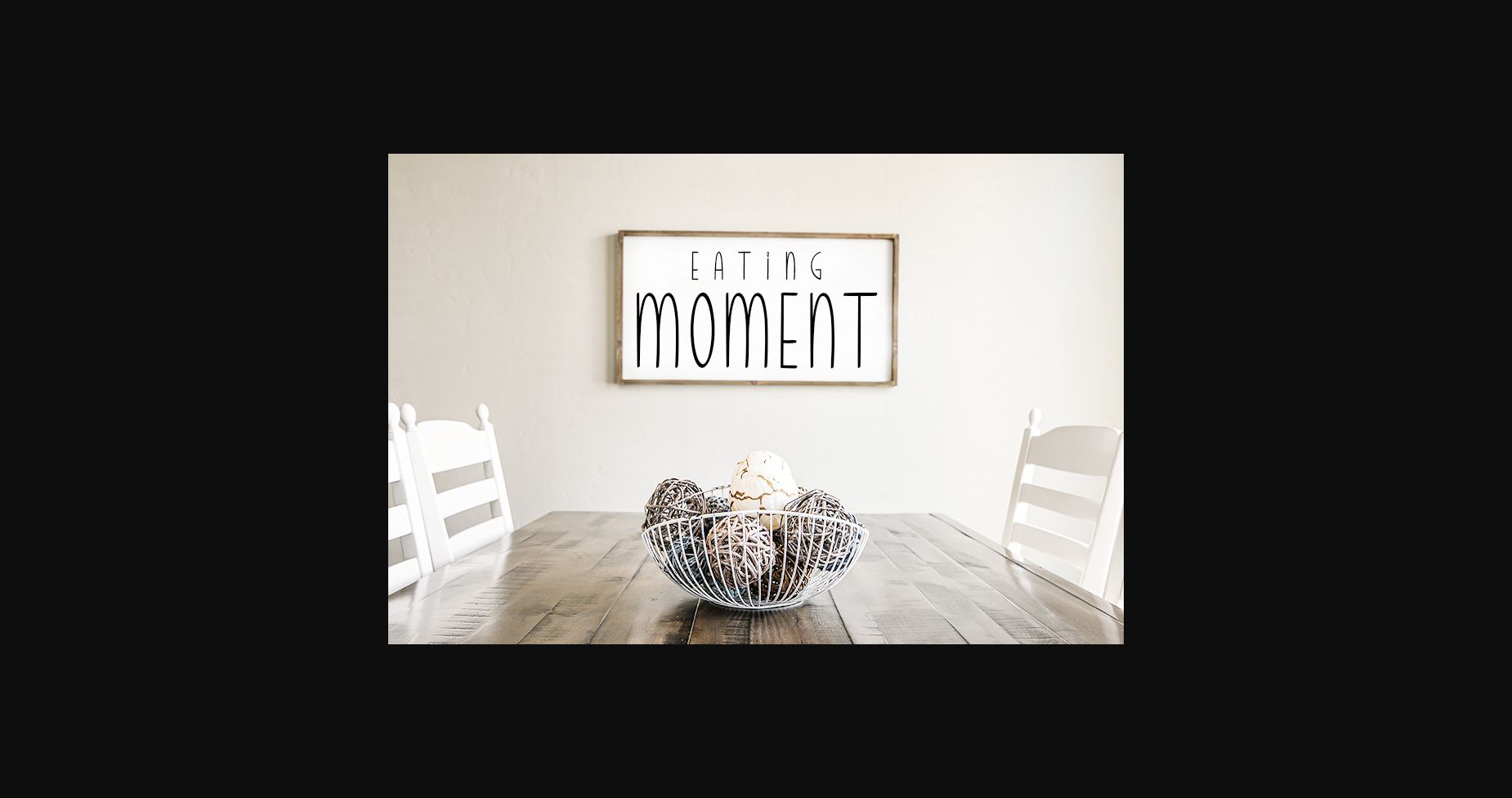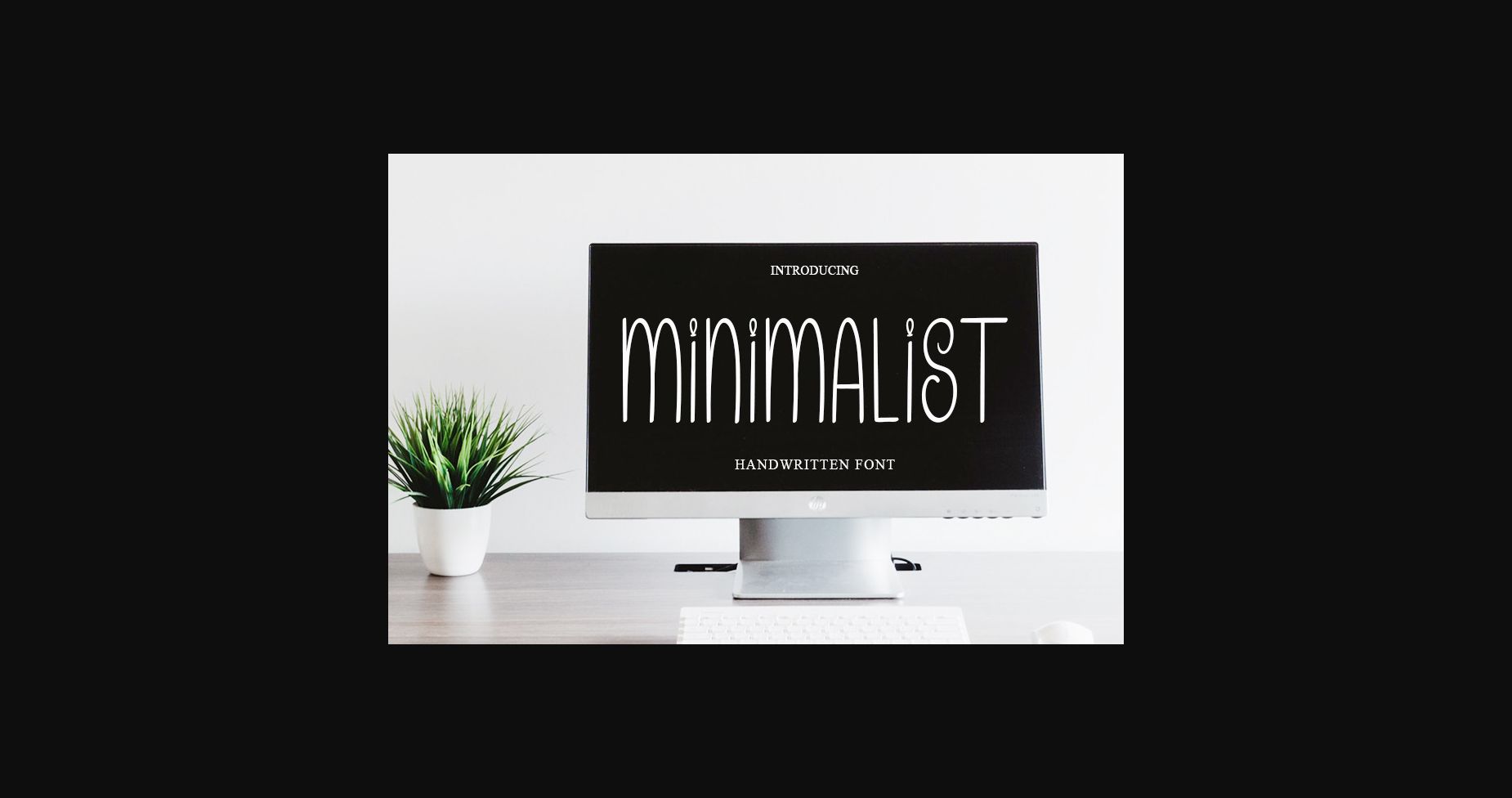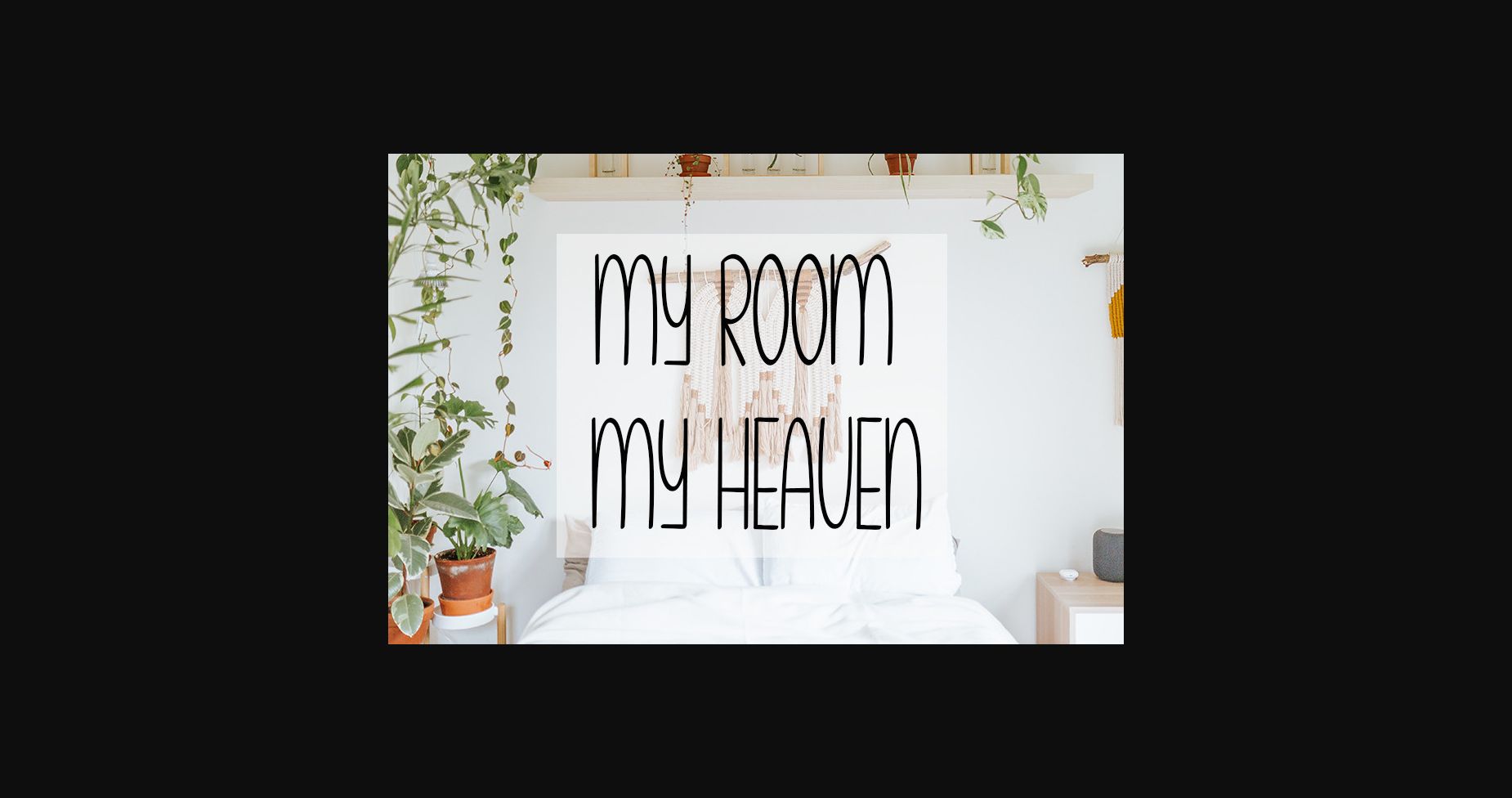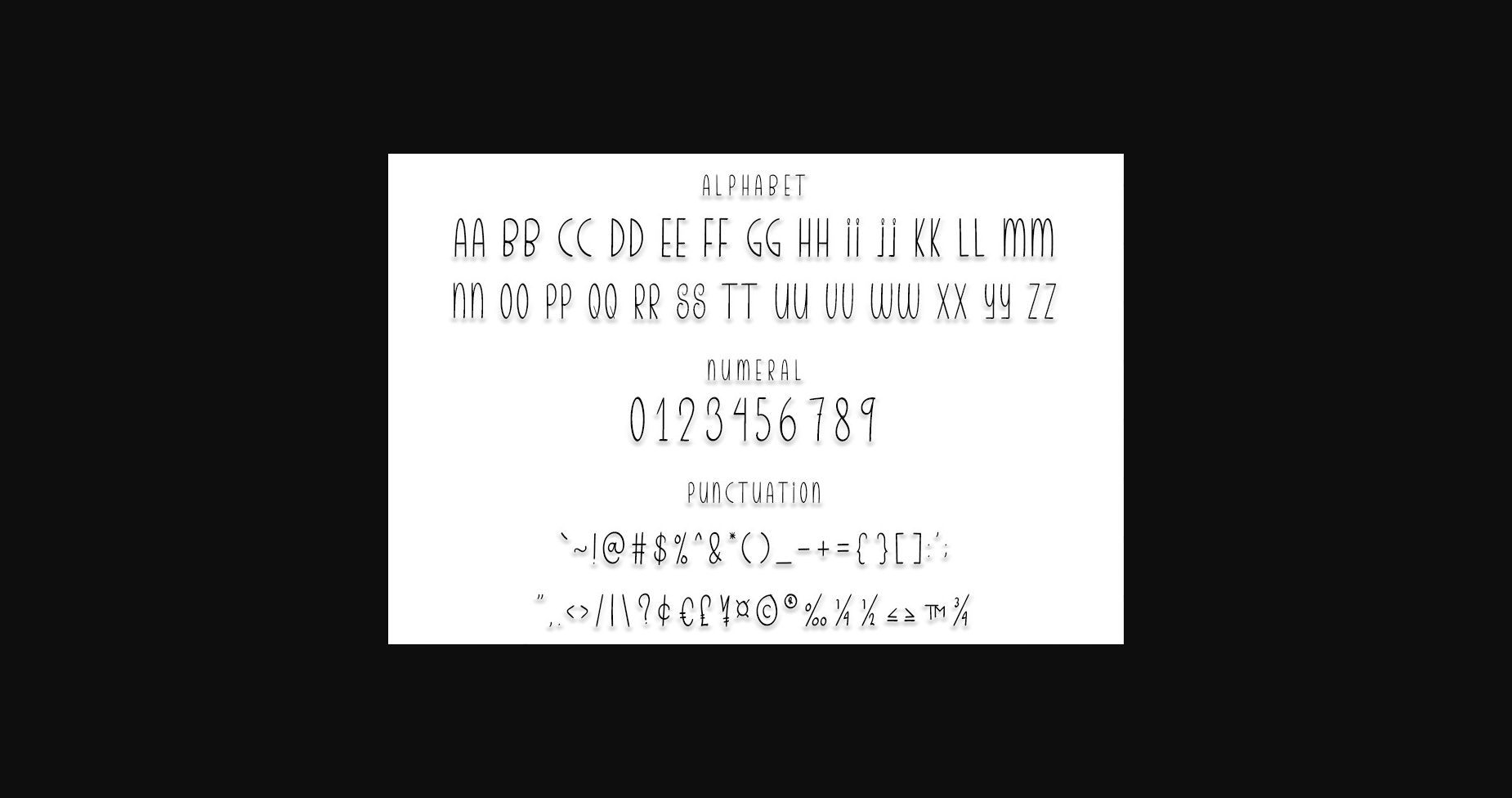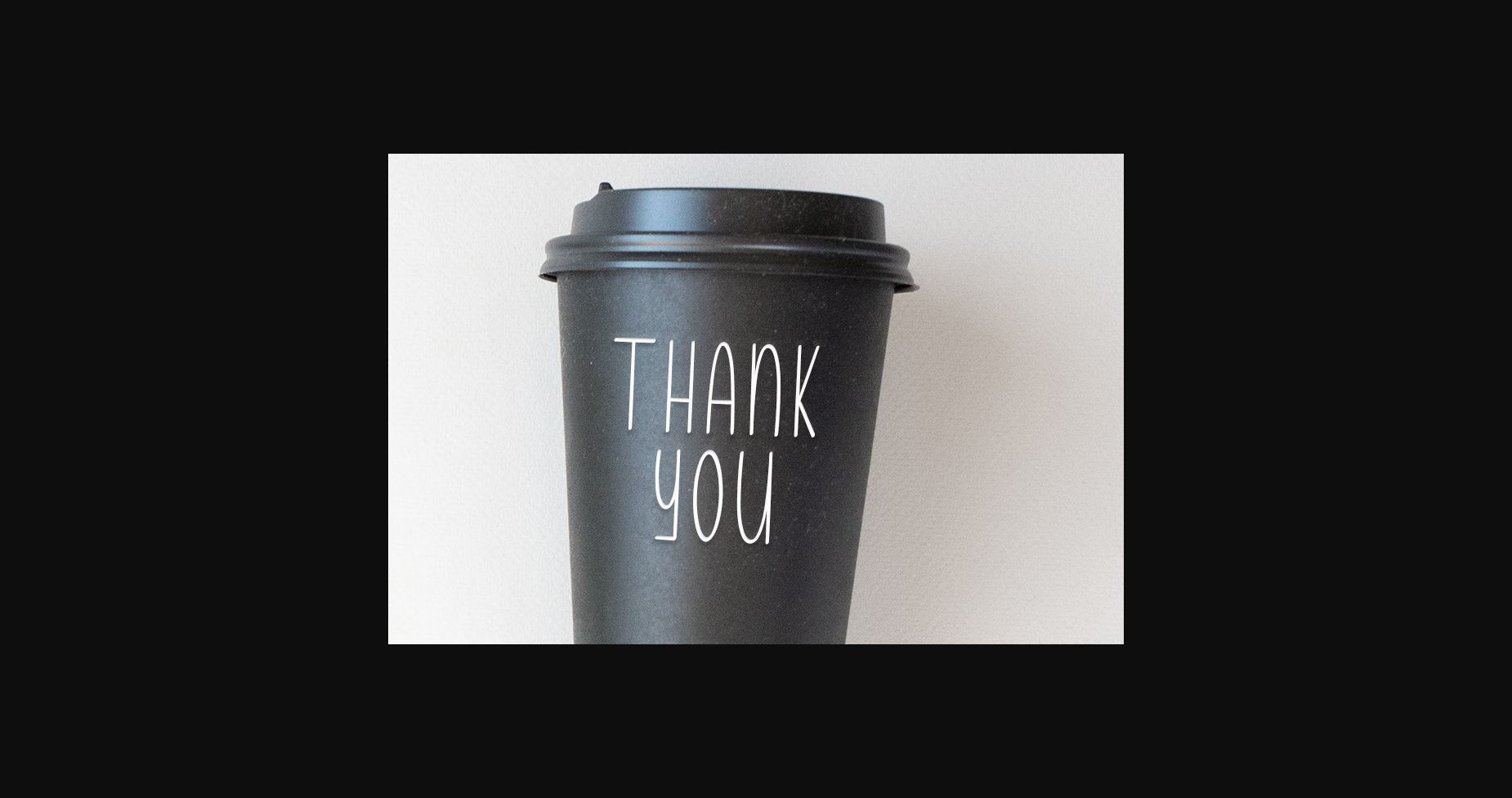
Minimalist is a casual sans serif font, carefully designed to become a true favorite. It maintains its classy calligraphic influences while feeling contemporary and fresh.